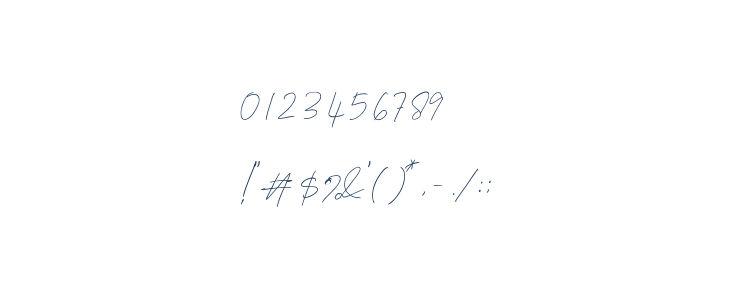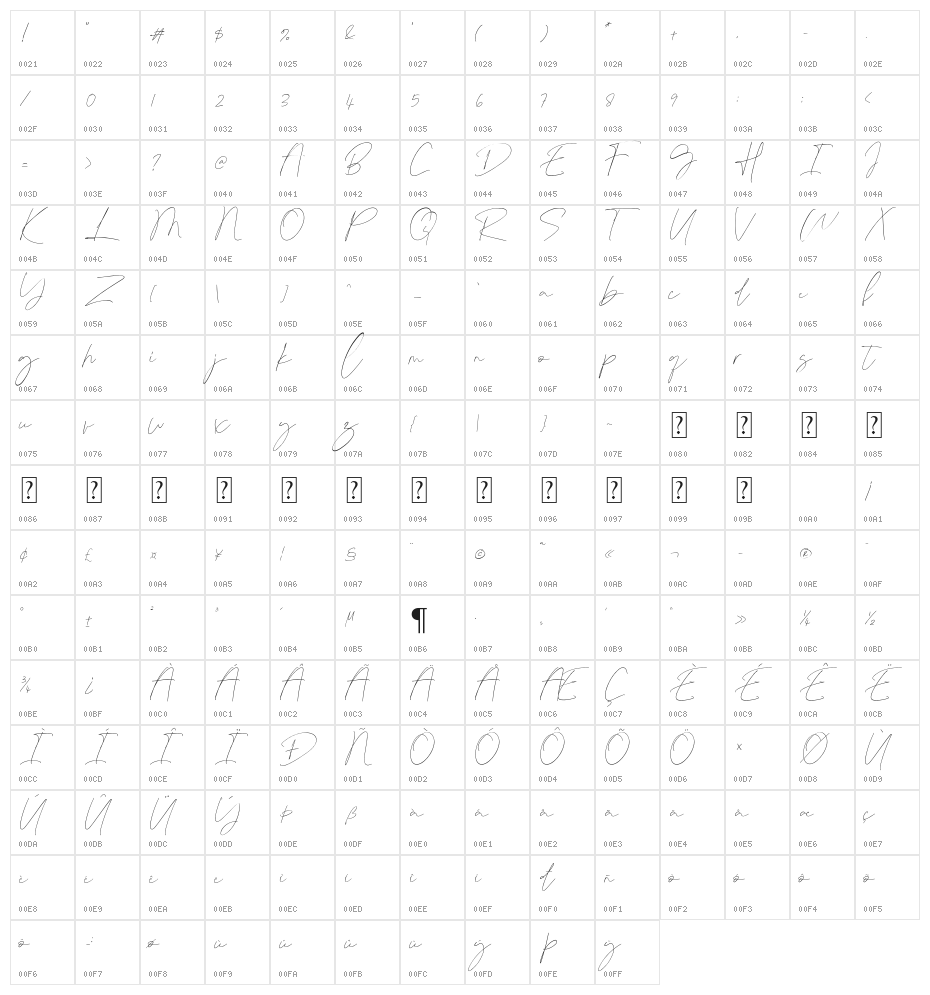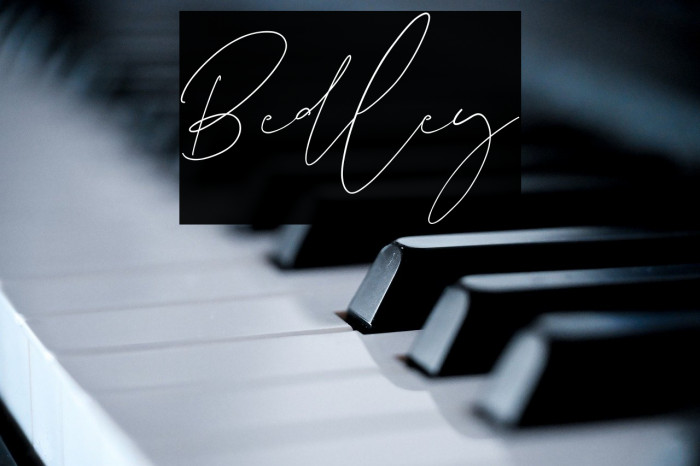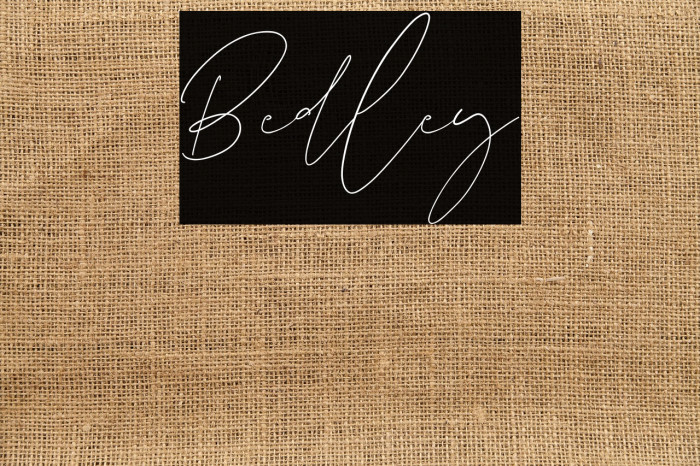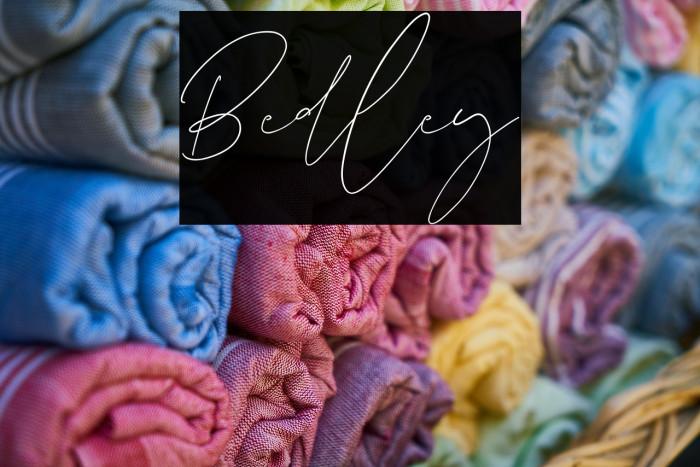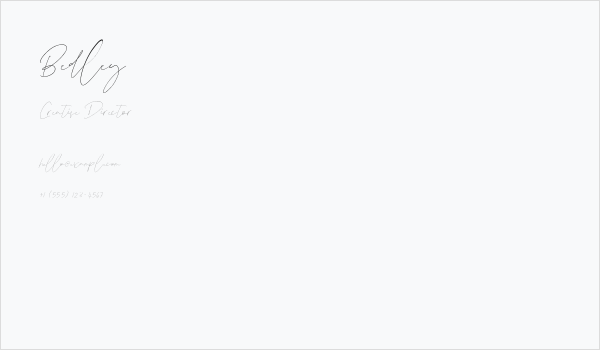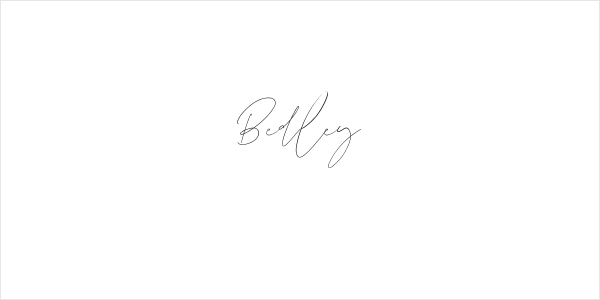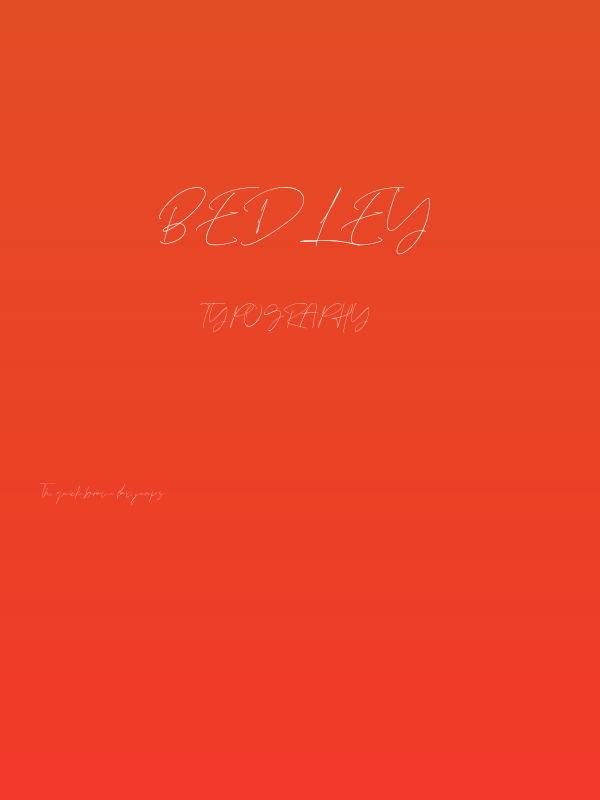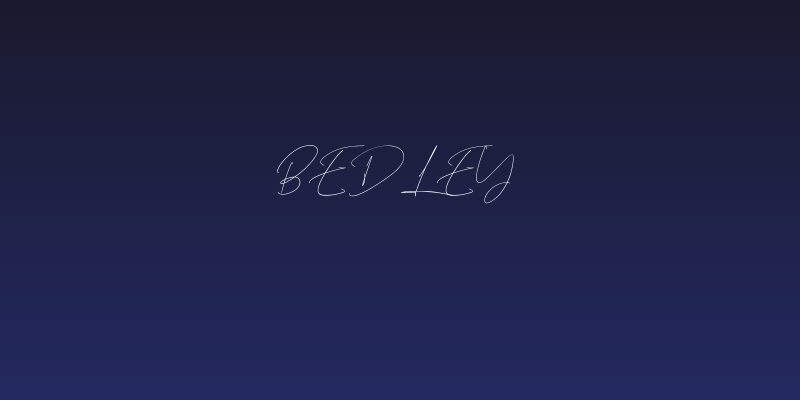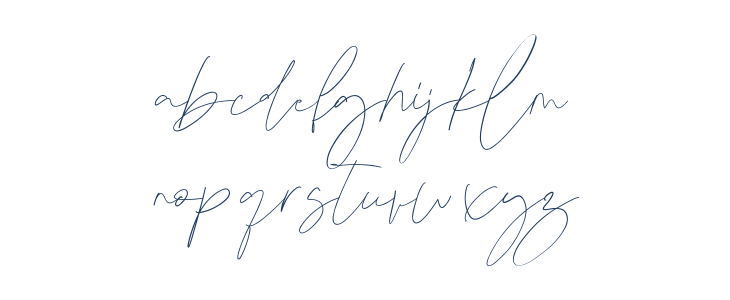
Bedley Font
Bedley Description
This font exudes a casual and artistic flair, characterized by its fluid, cursive strokes that mimic natural handwriting. The letters are connected in a seamless flow, giving it an organic and personal touch. The uppercase letters maintain a consistent height, while the lowercase letters vary slightly, adding to its dynamic appearance. The numerals and special characters are crafted with the same flowing style, ensuring uniformity across the font. Its thin lines and elegant curves make it ideal for projects that require a personal or creative touch.
| Overall Style | Casual, Artistic |
| Proposed Projects | Ideal for personal invitations, greeting cards, artistic projects, and branding that requires a personal touch. |